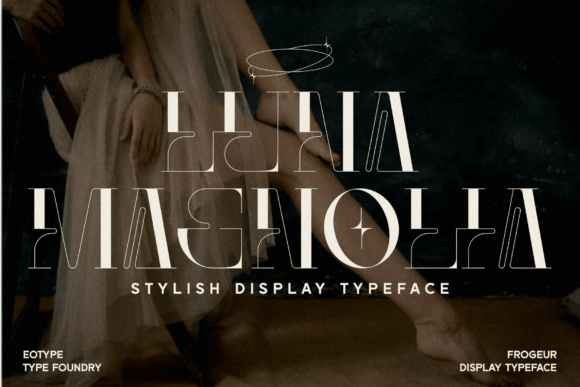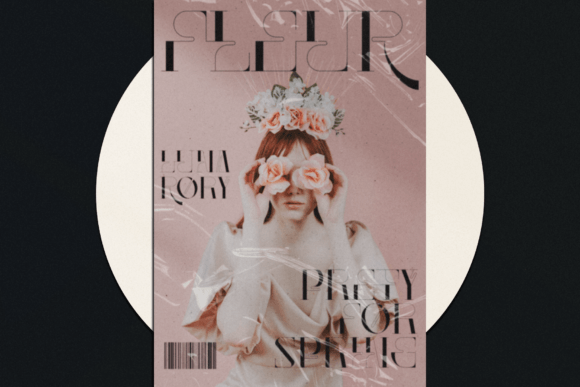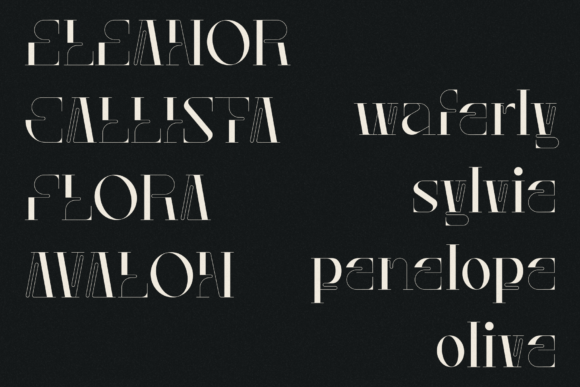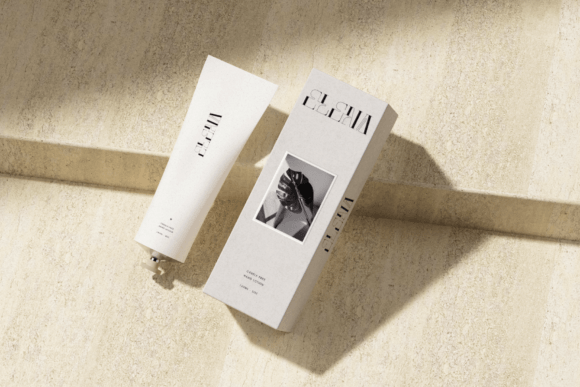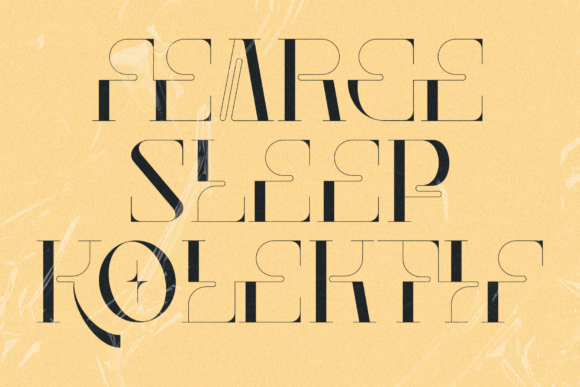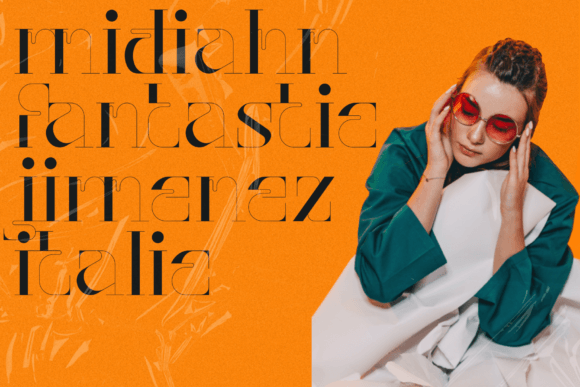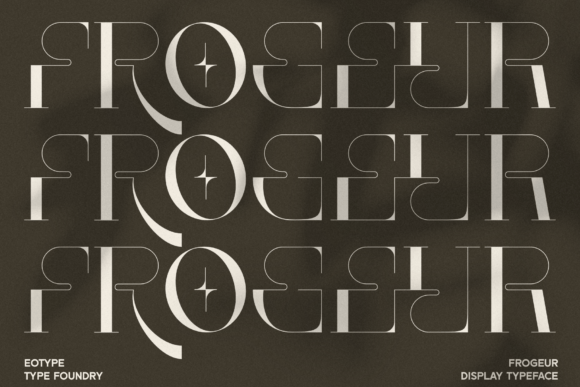
Frogeur Font: Elevate Your Designs with Stylish Modern Serif Elegance
In the realm of typography, a well-chosen font can elevate a design from ordinary to extraordinary. For designers and crafters seeking a stylish and modern serif display font, Frogeur Font stands out as an exceptional choice. Characterized by its extreme contrast between thick and thin lines, Frogeur exudes elegance and sophistication, making it perfect for a variety of creative projects.
Distinctive Design Elements
Frogeur Font boasts a distinctive design that sets it apart from other serif fonts. Its key features include:
- Extreme Contrast: The font’s dramatic contrast between thick and thin lines creates a visually striking effect, adding depth and elegance to any design.
- Half-Vertical Tension: Frogeur’s half-vertical tension contributes to its modern and refined appearance, making it suitable for designs that require a touch of sophistication.
- Minimalist Design Serifs: The font’s serifs are thoughtfully designed to be minimalist, ensuring that the overall aesthetic remains clean and uncluttered.
Frogeur Font is incredibly versatile, making it an excellent choice for a wide range of design applications, including:
- Brand Projects: Establish a strong brand identity with Frogeur’s stylish and modern serif design.
- Product Labels: Create eye-catching labels that stand out on store shelves.
- Logos: Design memorable logos that effectively communicate your brand’s message.
- Posters: Produce stunning posters that capture attention and convey your message with impact.
Frogeur Font is PUA (Private Use Area) encoded, which means that accessing all the glyphs and ligatures is straightforward. This feature allows designers to:
- Easily access alternative characters: Switch between different glyphs and ligatures to add variety to your designs.
- Streamline the design process: With PUA encoding, you can focus on creating stunning designs without getting bogged down in technical complexities.
Why Choose Frogeur Font?
With so many fonts available, why choose Frogeur Font? Here are just a few compelling reasons:
- Unique Design: Frogeur’s distinctive design ensures that your projects will stand out from the crowd.
- High-Quality Typography: The font’s extreme contrast and minimalist serifs create a refined and sophisticated aesthetic.
- Ease of Use: PUA encoding makes it easy to access all the glyphs and ligatures, saving you time and effort.
Tips for Using Frogeur Font
To get the most out of Frogeur Font, consider the following tips:
- Experiment with font sizes: Frogeur Font looks stunning in large display sizes, but it can also be effective in smaller sizes.
- Pair with complementary fonts: Combine Frogeur with other fonts to create visually appealing contrast.
- Pay attention to line spacing: Adjust line spacing to optimize readability and create a polished appearance.
In conclusion, Frogeur Font is an exceptional choice for designers and crafters seeking a stylish modern serif display font. Its unique design elements, versatility, and PUA encoding make it an excellent addition to any design project. Whether you’re working on a brand project, product label, logo, or poster, Frogeur Font is sure to elevate your designs to new heights.